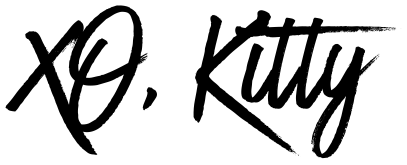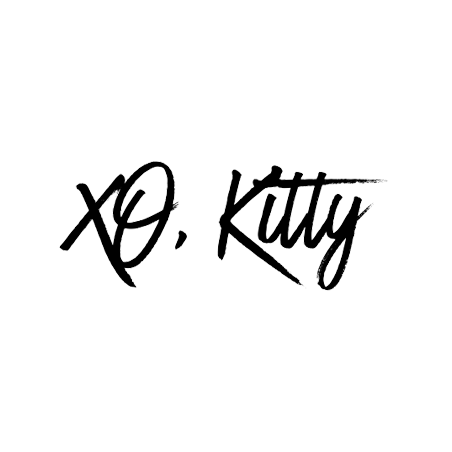
XO Kitty Font
ComedyXO, Kitty is a 2023 romantic comedy-drama television series and a spin-off of the To All the Boys film series. It follows Kitty Song Covey as she moves to South Korea to reunite with her long-distance boyfriend, only to discover that love is more complicated than she thought. The second season premiered on January 16, 2025.
The XO, Kitty poster features a brush script style using Have Heart One by Set Sail Studios. The sans serif typeface used is Netflix Sans, designed by Dalton Maag. The onscreen ending credits utilize Bilo Regular from Bold Monday.